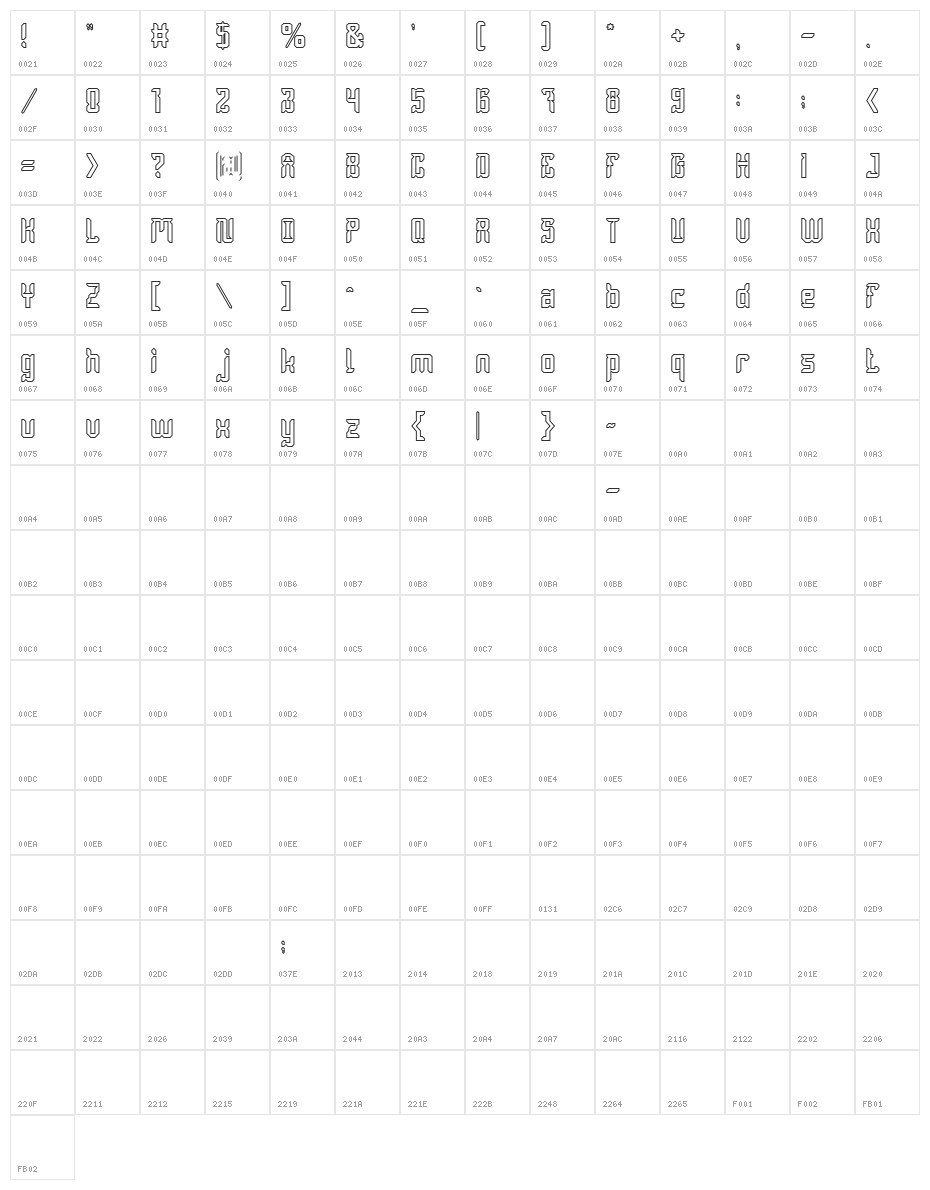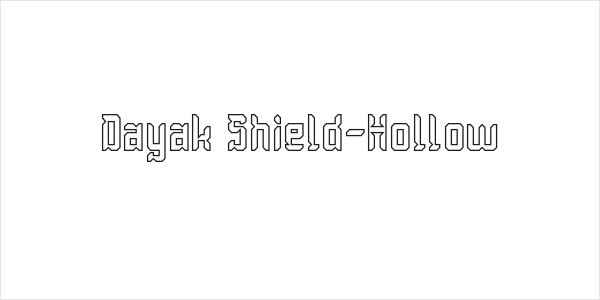
Dayak Shield-Hollow Font
Dayak Shield-Hollow Description
This font features a bold, geometric design with a hollow, outlined style that gives it a striking and modern appearance. The characters are constructed with sharp angles and straight lines, creating a sense of strength and stability. The uppercase and lowercase letters maintain a consistent height, while the numerals and special characters follow the same bold, outlined aesthetic. The font's unique hollow design makes it stand out, making it ideal for projects that require a distinctive and eye-catching typeface.
| Proposed Projects | Ideal for posters, logos, branding, and any design needing a bold, modern touch. |